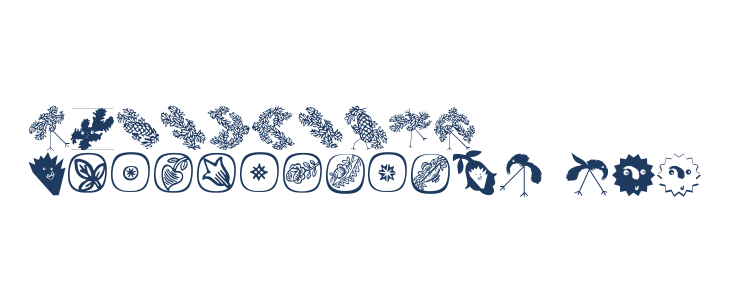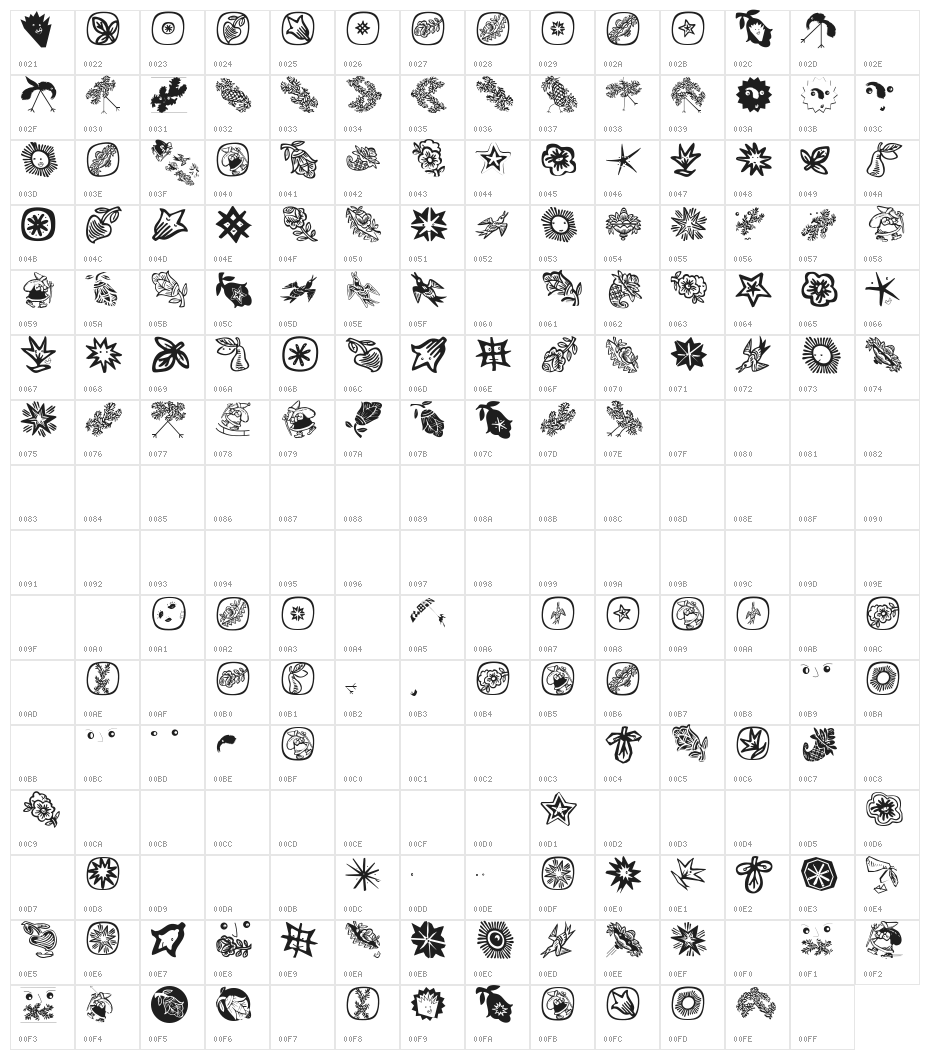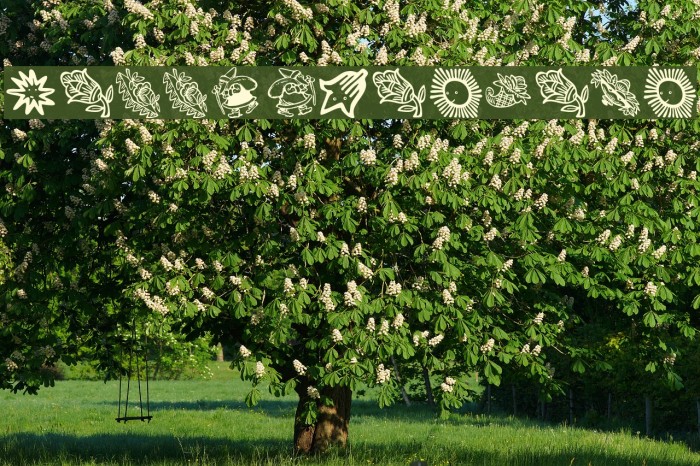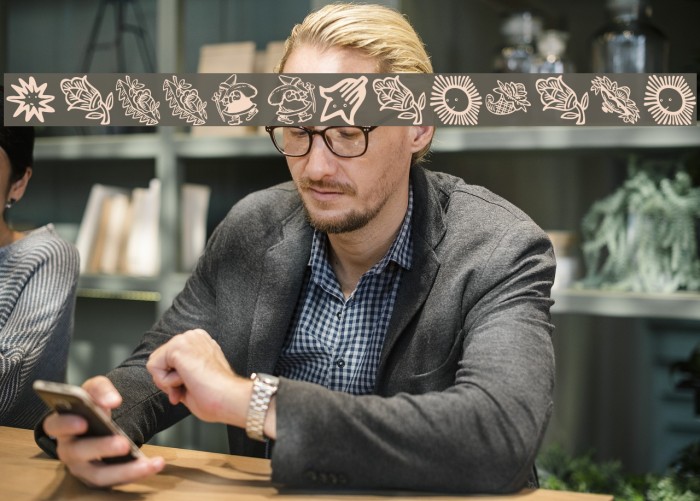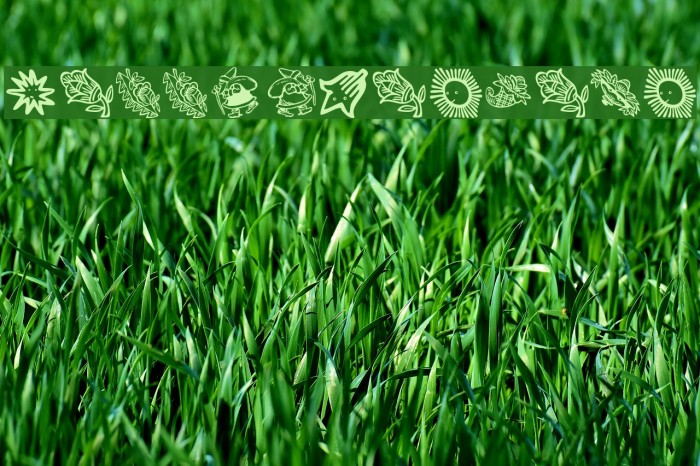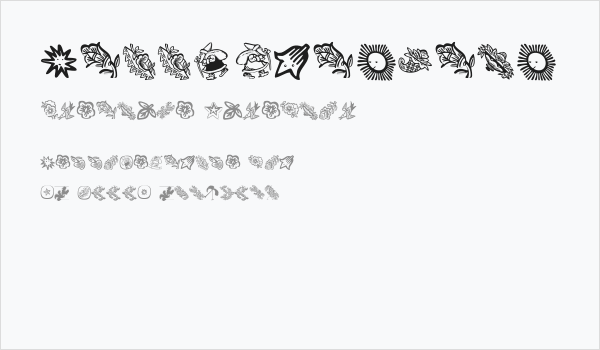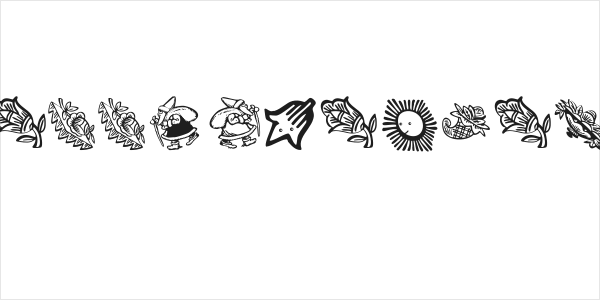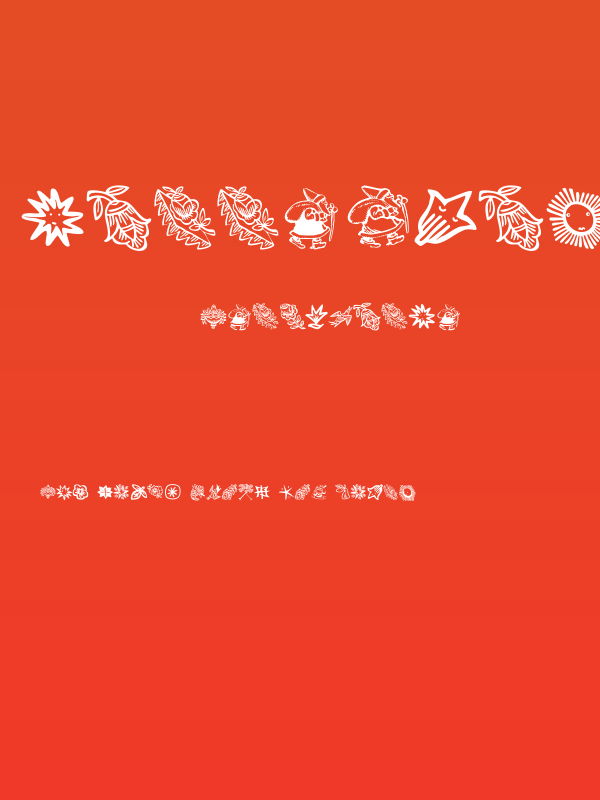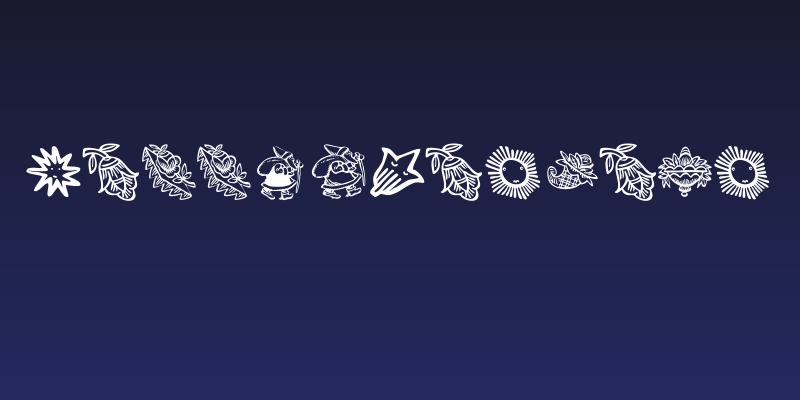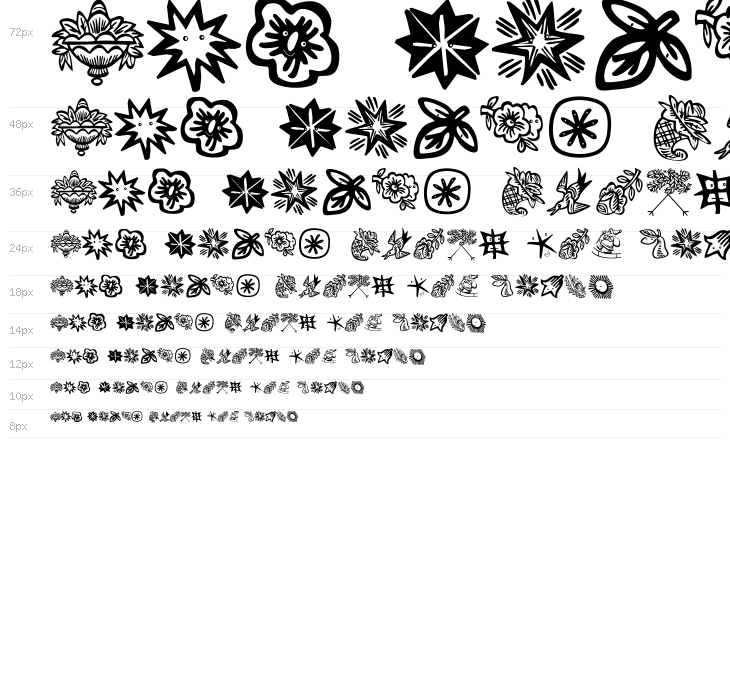
HappyXmasBats Font
HappyXmasBats Description
This collection features a whimsical array of decorative symbols and illustrations, each with a festive and playful theme. The designs include various holiday-inspired motifs such as stars, leaves, and abstract shapes, all rendered in a bold, graphic style. The characters are intricately detailed, with a mix of solid and outlined elements that create a dynamic visual effect. The overall aesthetic is cheerful and imaginative, making it suitable for creative and festive projects. The designs are consistent in their artistic approach, offering a cohesive set of decorative elements.
Use CaseDecorative elements, Themed designs, Creative projects
Proposed ProjectsIdeal for holiday cards, festive decorations, creative gift wrapping, and themed event invitations.